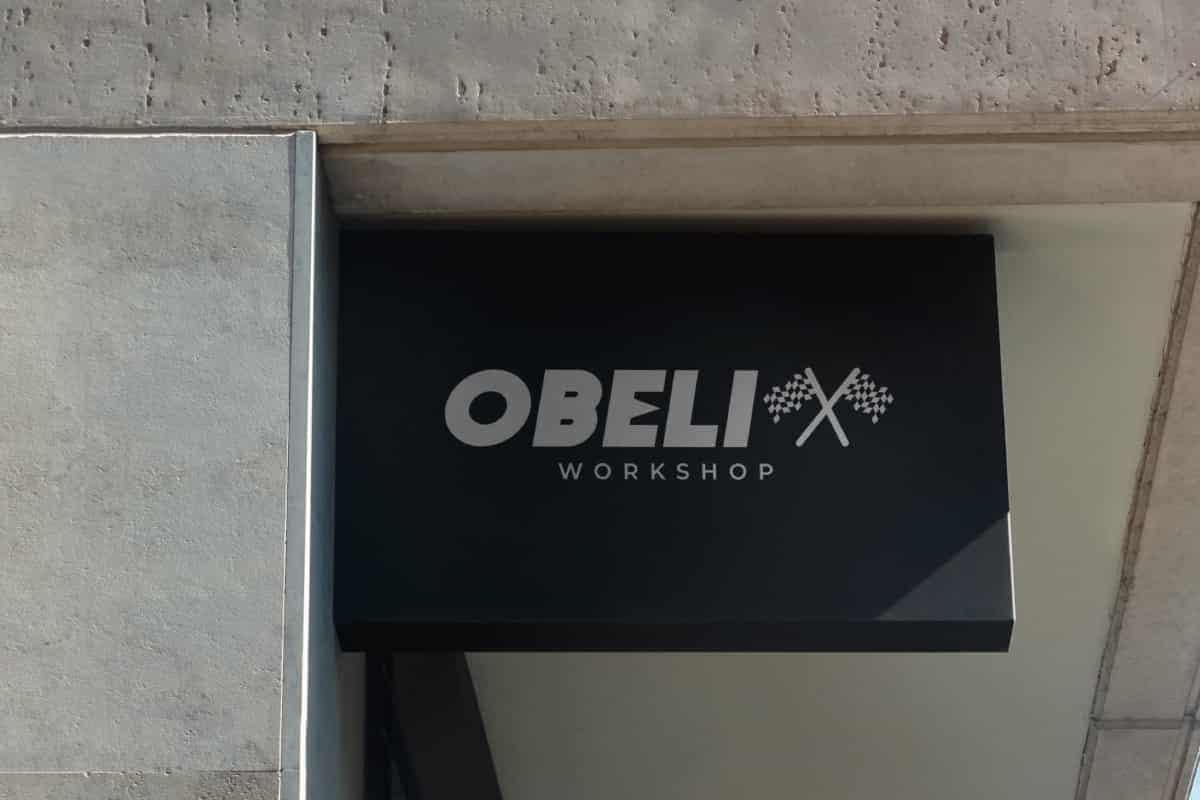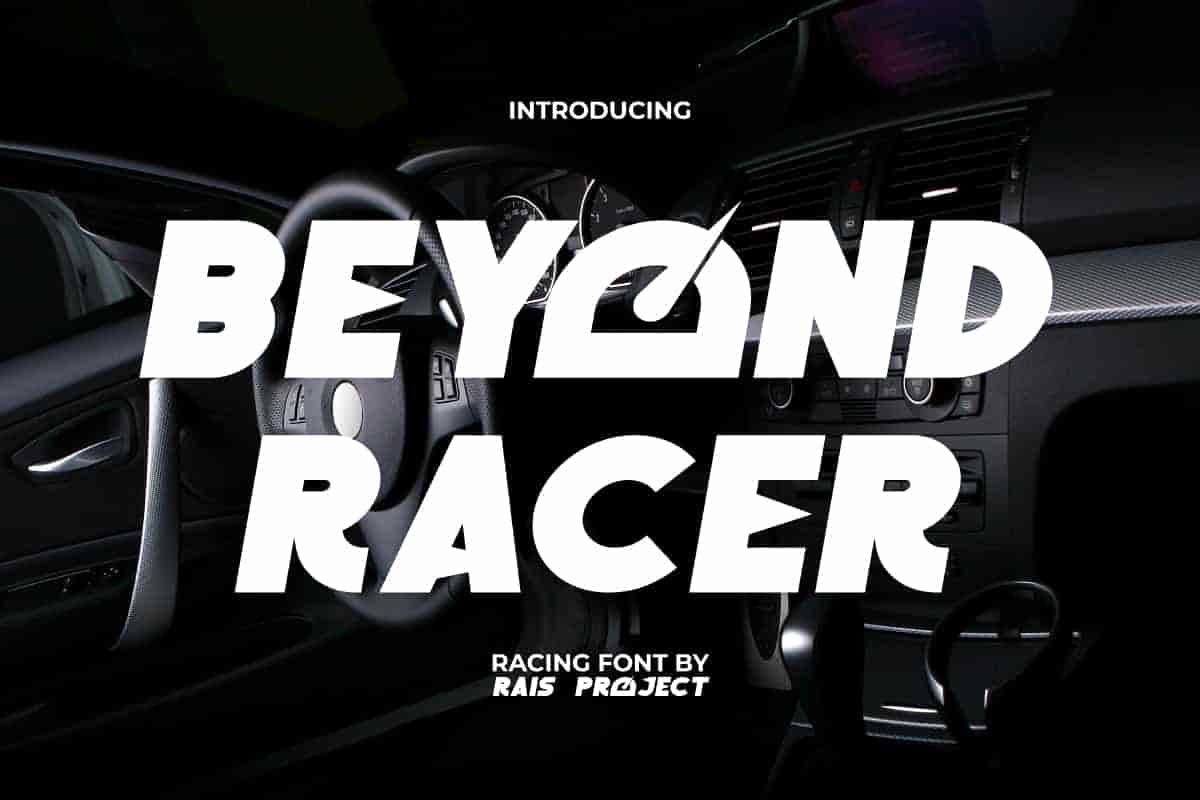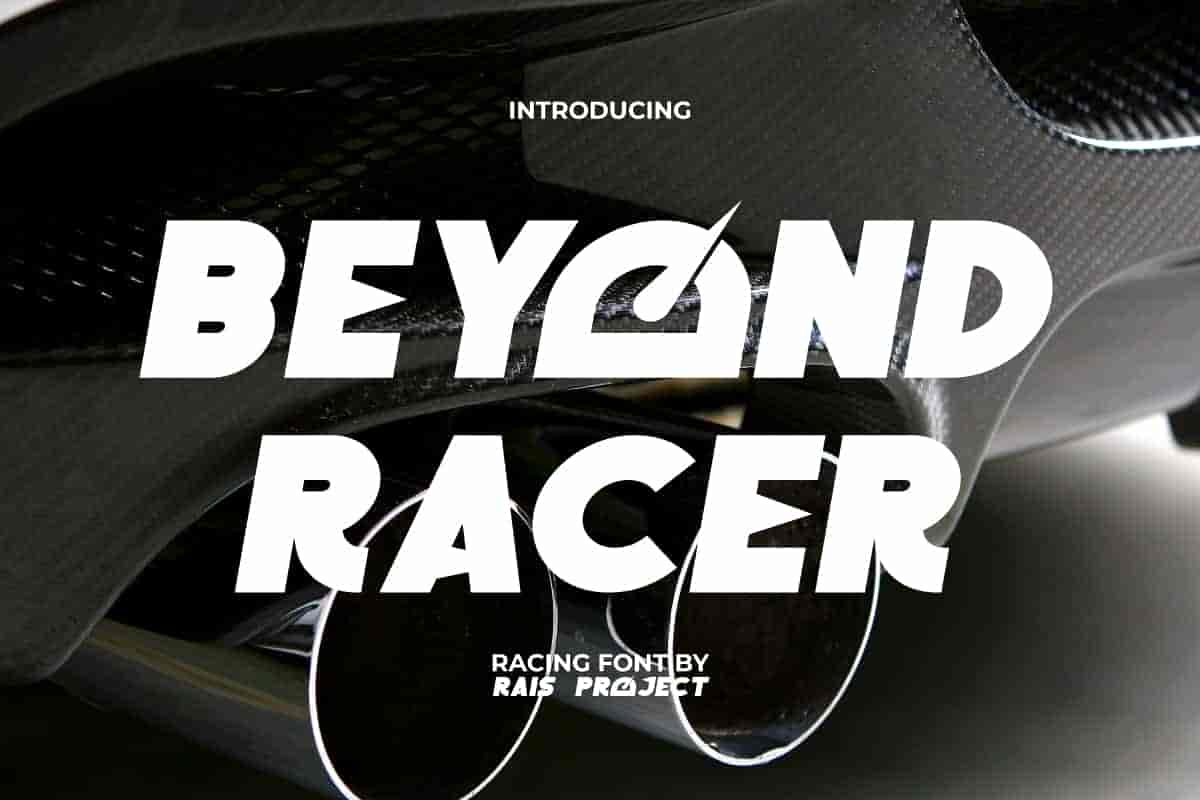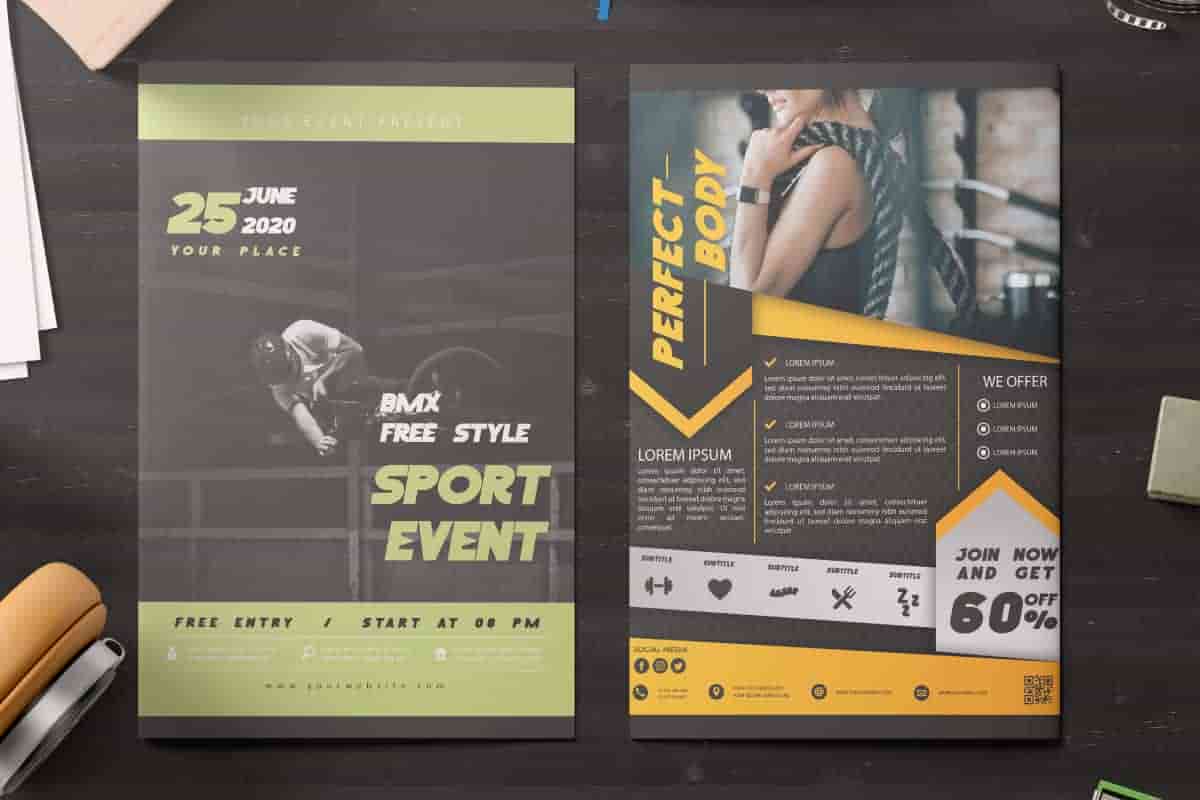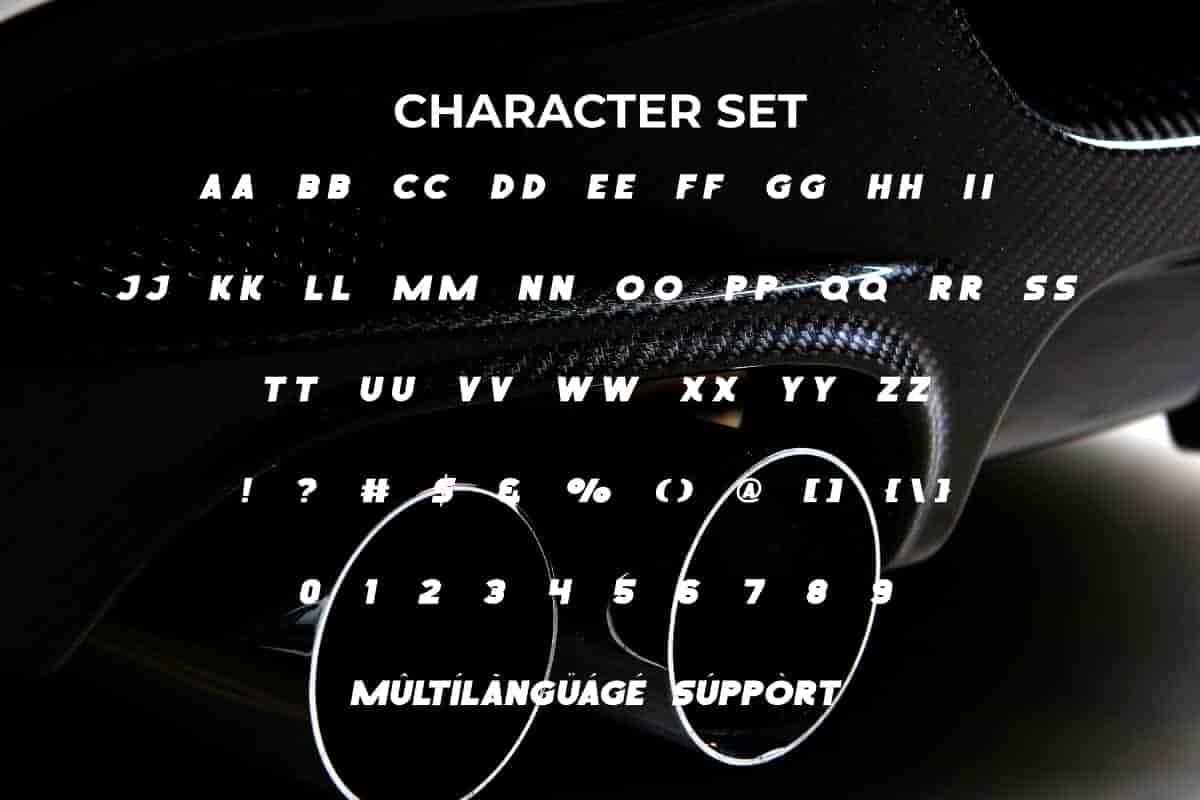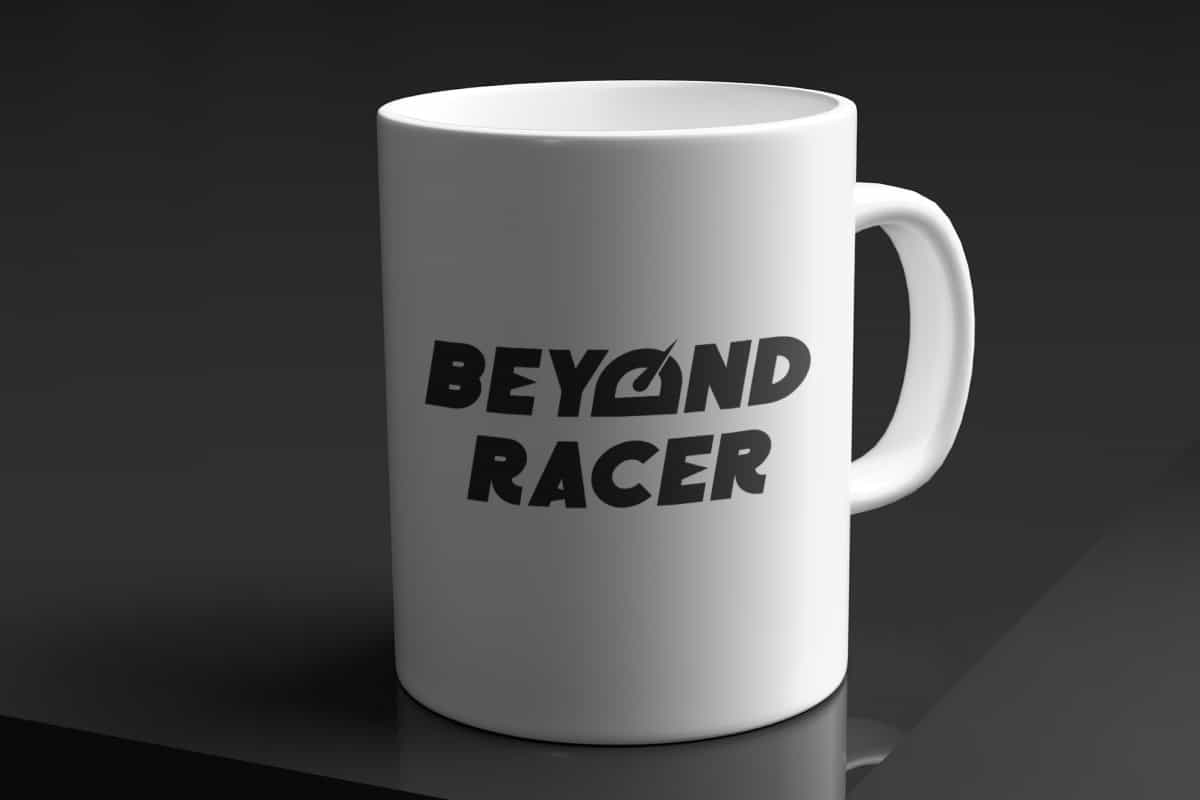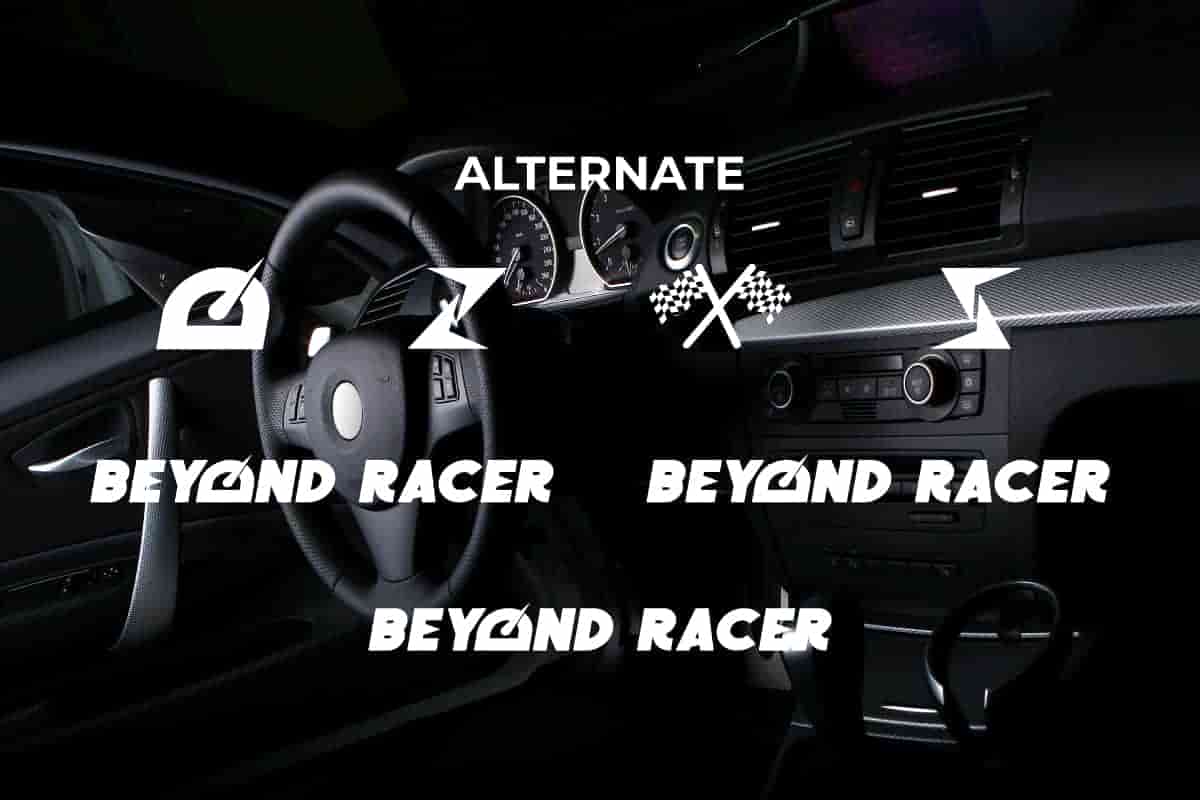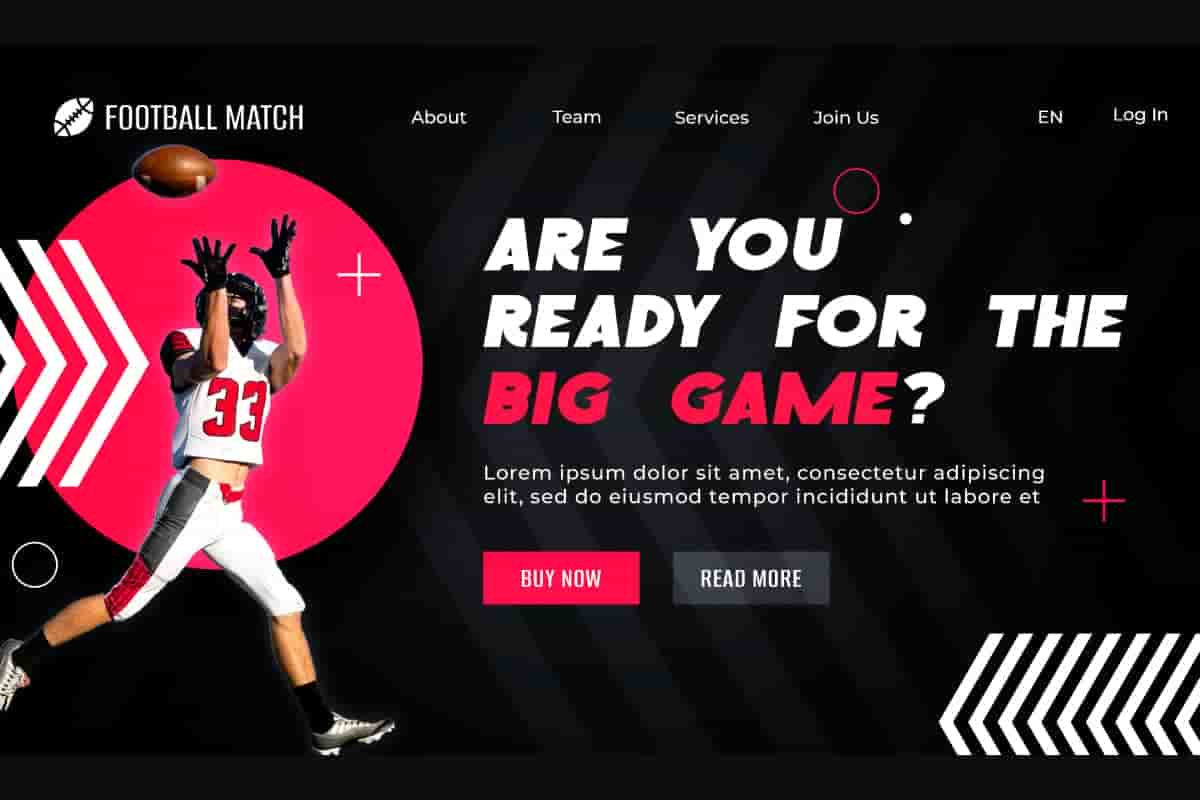
Beyond Racer Display Font
Beyond Racer Font is a unique bold display racing font.Use this font right away to make your design look attractive!
Beyond Racer Font a stylish display racing font, created by RaisProject.This display font has bold letters with added icons to make it unique at the same time.It will be good for any designs, such as advertisement, brand image, custom design, invitation, label, marketing material, poster, product packaging, quotes, signage, stationery, website page, and more! You can see the demo font below, input any word you want so you can see what it looks like:
Beyond Racer Font includes a full set of ALL CAPS for Uppercase and Lowercase Letters, Numerals, and large range of Punctuation. This racing font also include Alternate character that will be suitable for various industries, such as automotive, barber shop, cafes, event or festival, fashion, game, photography, printing, publishing, sports, etc. What you get: